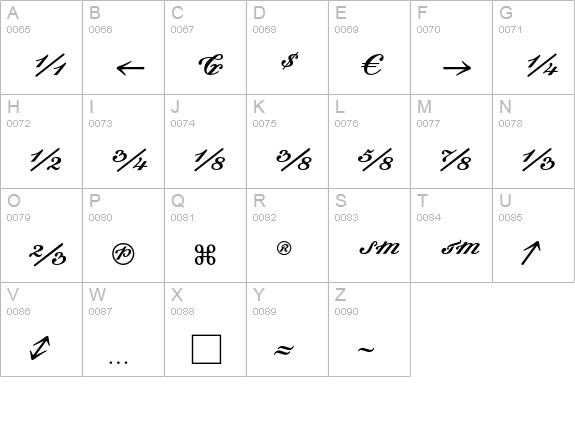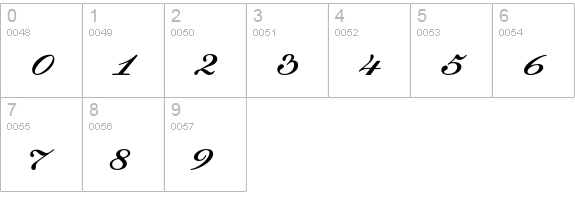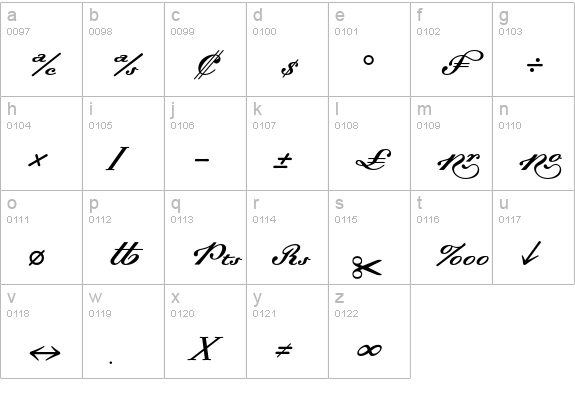
DallianceScriptFractions Font Details
Introducing DallianceScriptFractions, a captivating and versatile font that effortlessly blends elegance and playfulness. With its intricate and delicate letterforms, this font is perfect for adding a touch of sophistication to any design project. DallianceScriptFractions is a beautiful script font that exudes charm and allure. Its flowing and graceful lines create a sense of movement and fluidity, making it ideal for creating eye-catching headlines, logos, invitations, and more. Whether you're designing for a wedding, a high-end fashion brand, or a whimsical event, this font will surely captivate your audience. One of the standout features of DallianceScriptFractions is its inclusion of fractions. This unique aspect allows you to effortlessly incorporate fractions into your designs, adding a touch of refinement and precision. Perfect for showcasing measurements, recipes, or any content that requires precise fractions, this font truly elevates your design work. What makes DallianceScriptFractions even more impressive is that it is freely available to download at FontsMarket.com. This means that you can access this exquisite font without any hassle or cost, making it an incredible asset for both personal and commercial projects. Don't miss out on this opportunity to enhance your designs with a font that radiates elegance and style. So, whether you're a seasoned designer looking for a versatile and stunning font or a beginner seeking to add a touch of sophistication to your creations, DallianceScriptFractions is the perfect choice. Download it for free today at FontsMarket.com and let your imagination soar with its enchanting beauty.